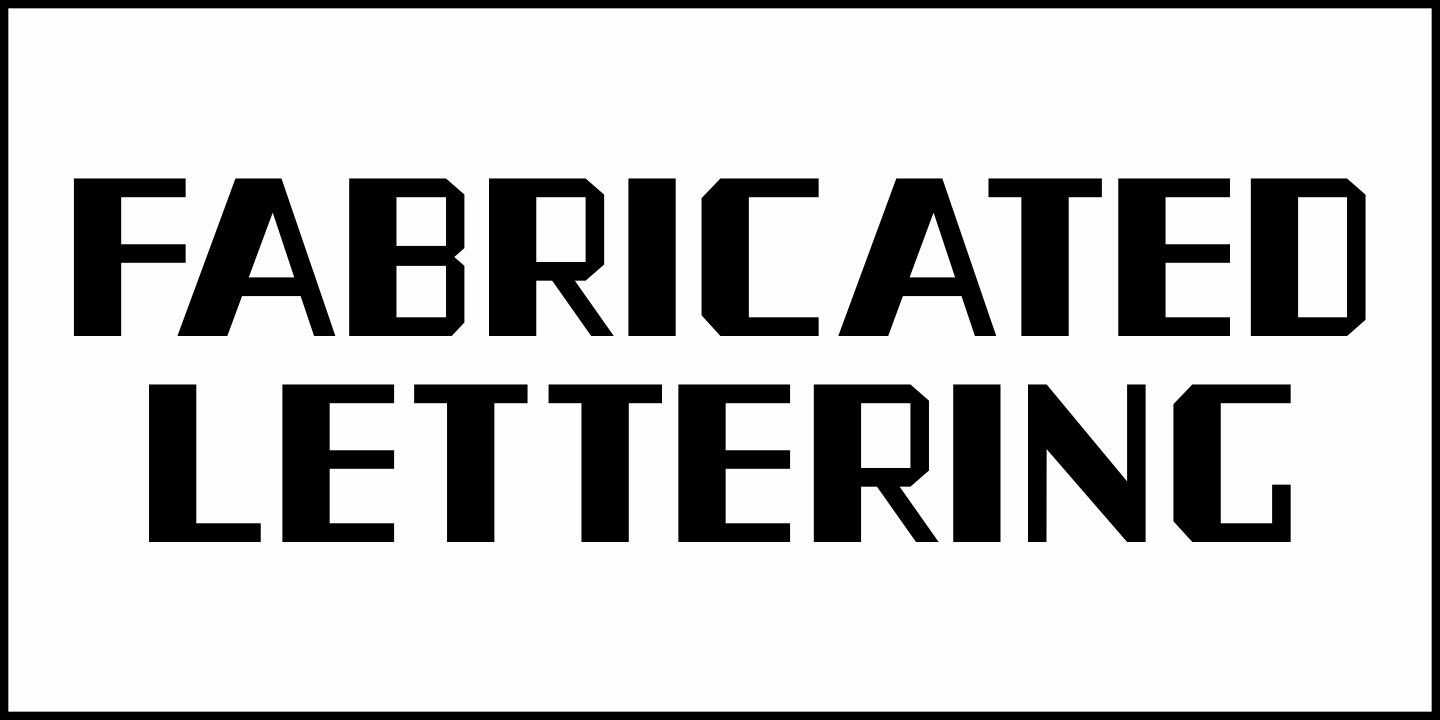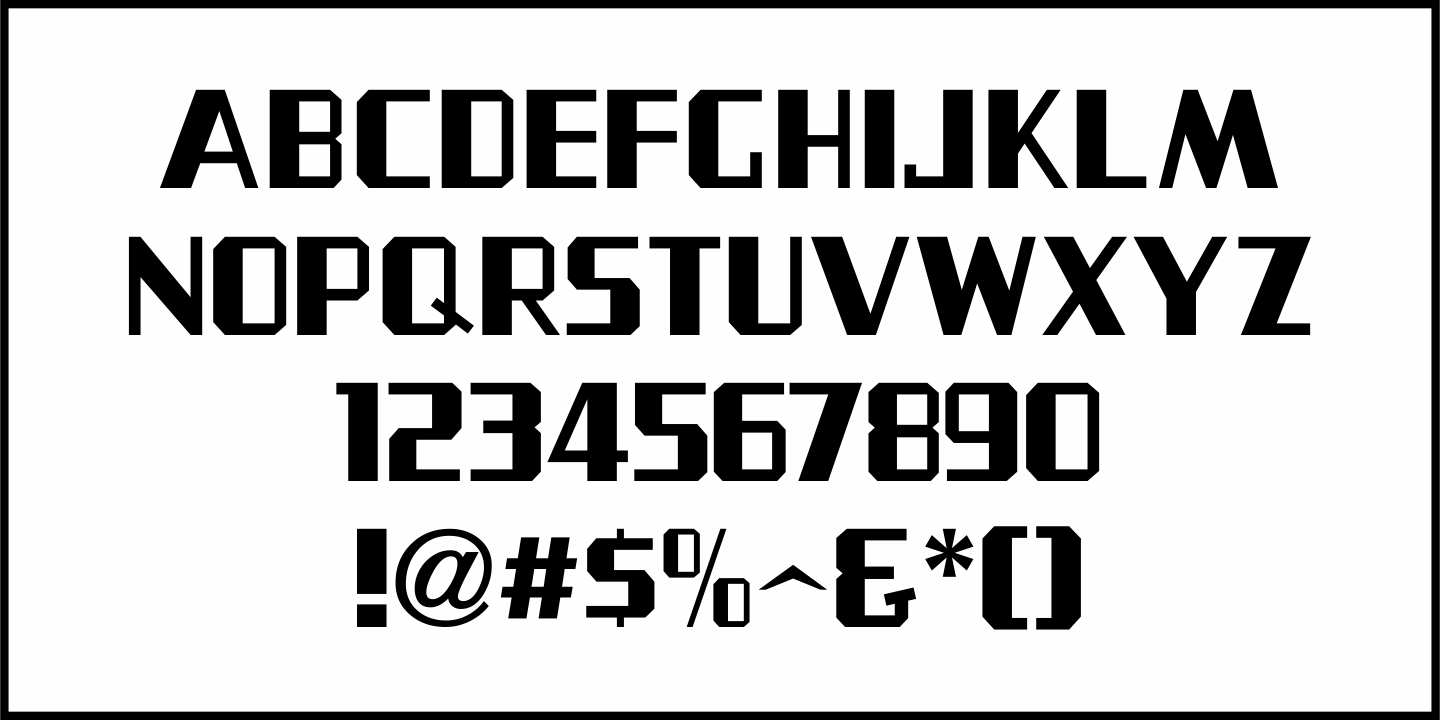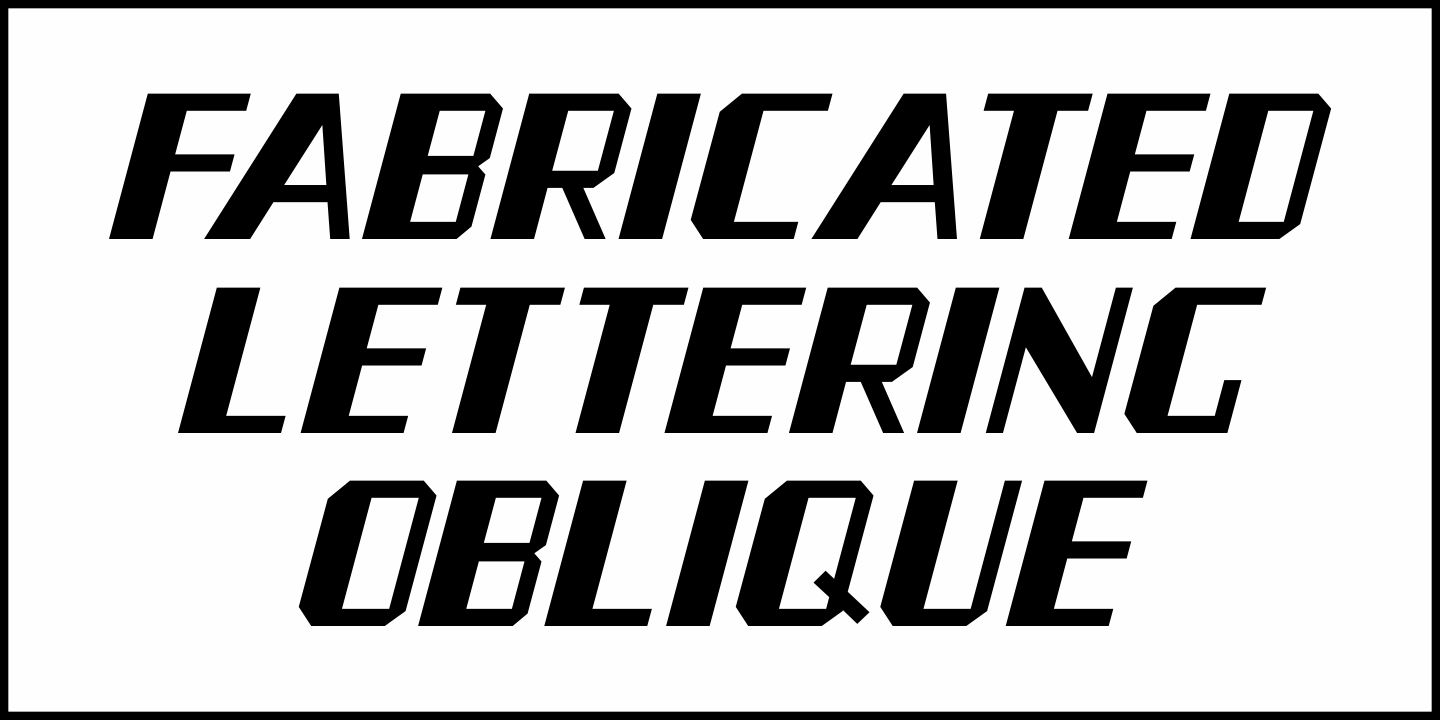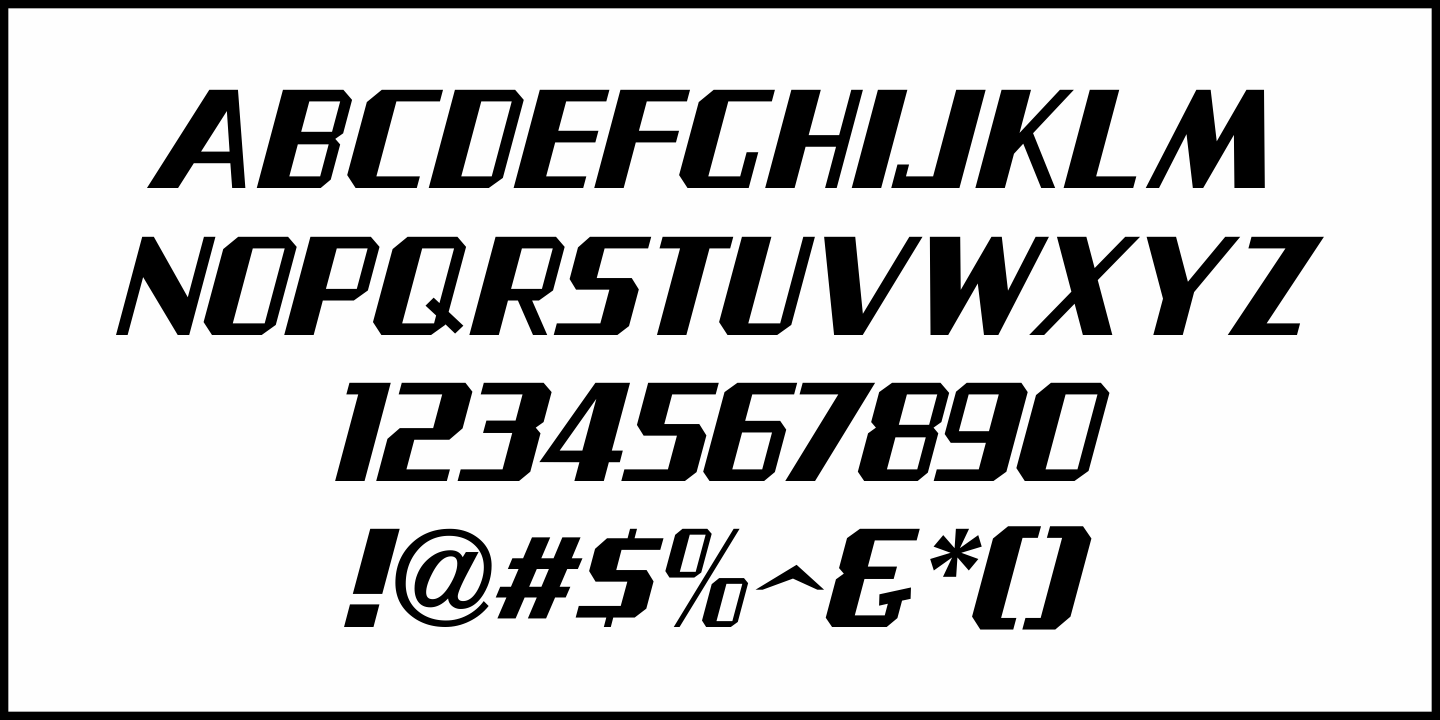
Fabricated Lettering
A 1959 catalog for F. T. Nelson's Nelco Metalcraft, Inc. of Chicago listed numerous styles of letters they could fabricate for custom signage.
One design in particular was called Nelco Gothic (by 1964 they had renamed it Nelco Broadway) consisting of an Art Deco influenced thick-and-thin sans serif with chamfered corners.
Originally available only in a slanted (oblique) style, this type style has been redrawn digitally as Fabricated Lettering JNL and is available in both regular and oblique versions.